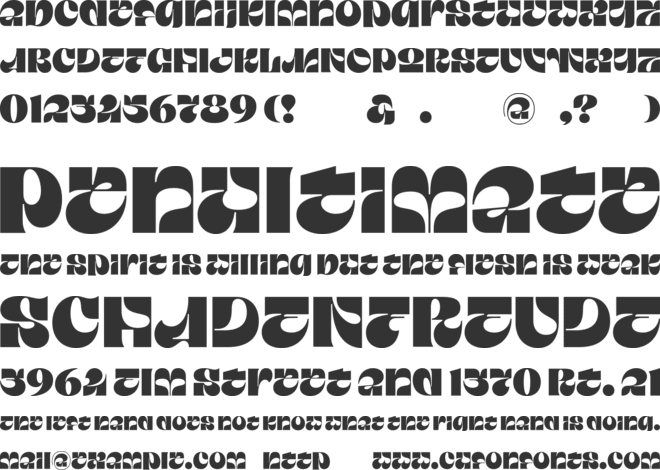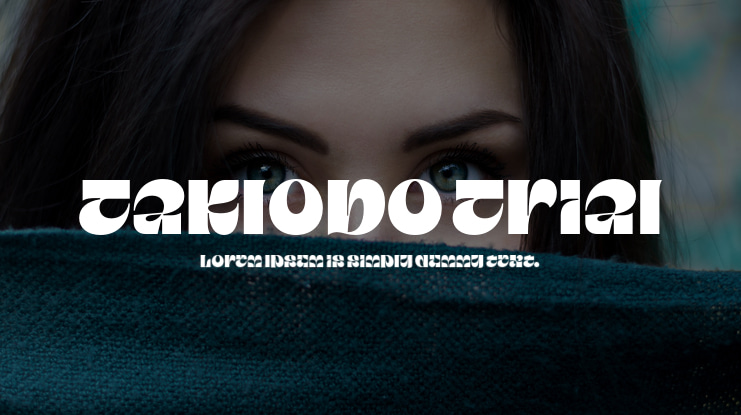
Taklobo Trial Font
John David Maza
This is a fancy modern condensed display typeface. It’s designed and shared by John David Maza. Taklobo is a heavy display typeface resembling the proportions and curves of the world’s largest living bivalve mollusks—the giant clams, locally known as taklobo—found in threatened numbers off the shores of the Philippines.